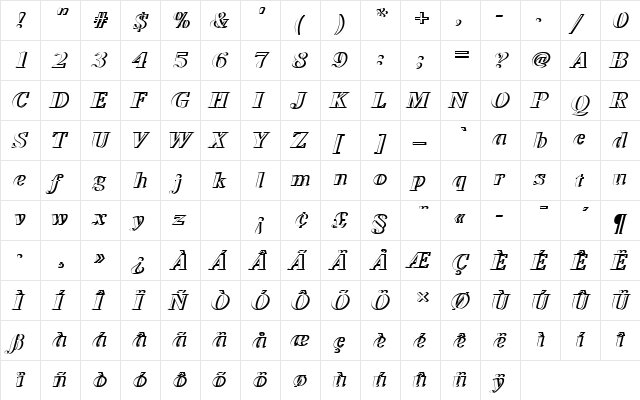
NimbusRomDExtBolItaRe1 Regular
Design Context for NimbusRomDExtBolItaRe1 Typeface
NimbusRomDExtBolItaRe1 is a composed and adaptable typeface that performs quietly and consistently across a wide range of design contexts.